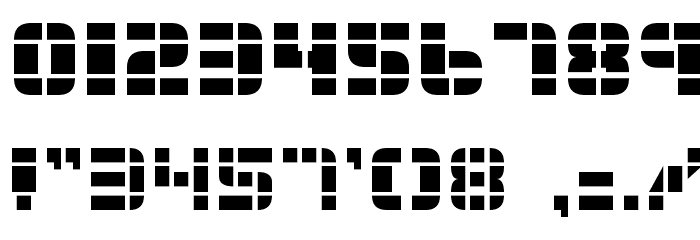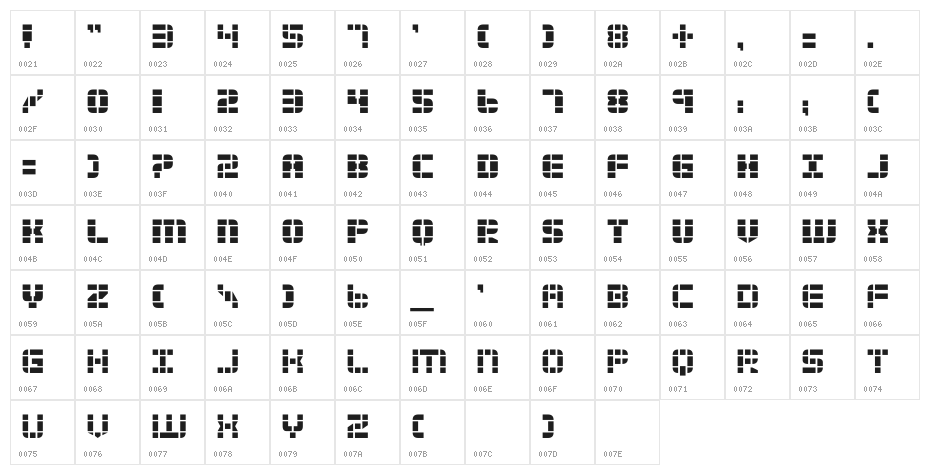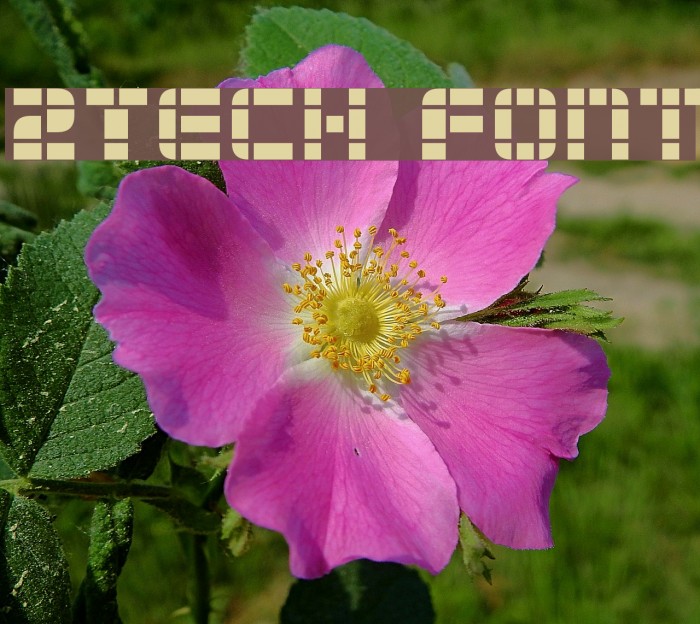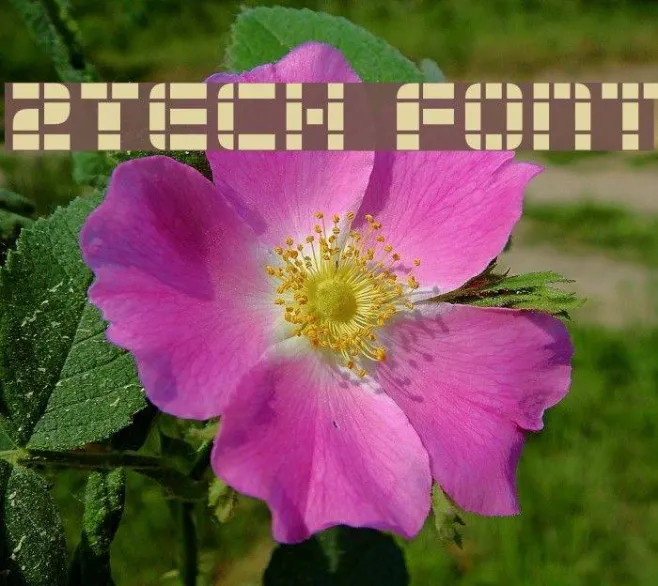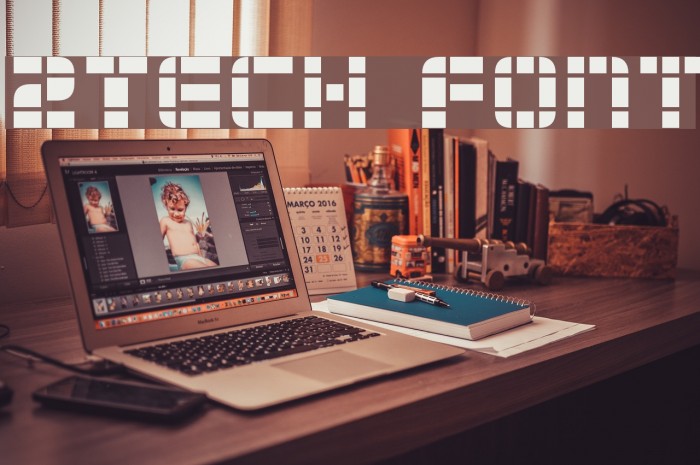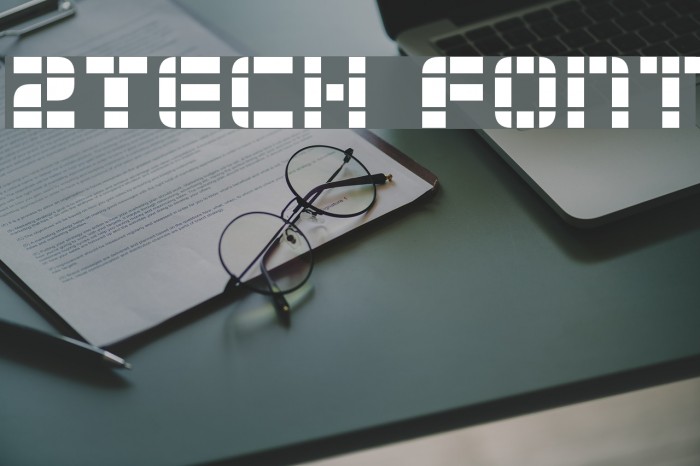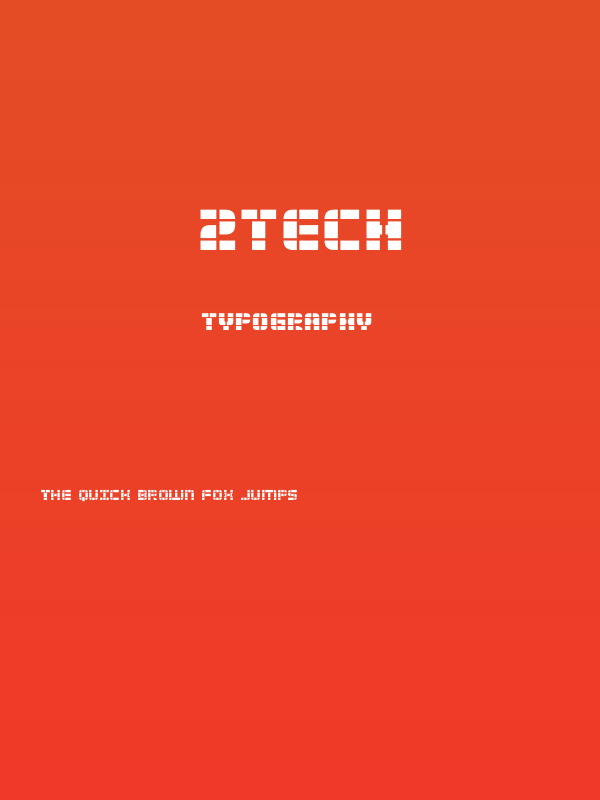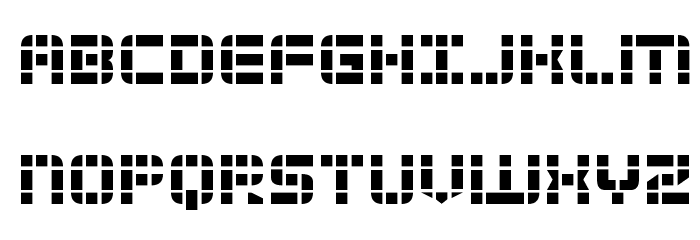
2Tech Font
2Tech Description
This font features a bold, geometric design with a digital, futuristic aesthetic. Each character is constructed from a series of block-like segments, giving it a pixelated appearance reminiscent of early digital displays or retro video games. The uppercase letters are robust and uniform, while the lowercase letters maintain the same structural integrity with a slightly more compact form. Numbers and special characters follow the same design principles, ensuring consistency across all glyphs. The font's unique style makes it stand out, ideal for projects that require a modern, tech-inspired look.
| Proposed Projects | Ideal for tech-related branding, video game graphics, digital art projects, and modern advertising campaigns. |